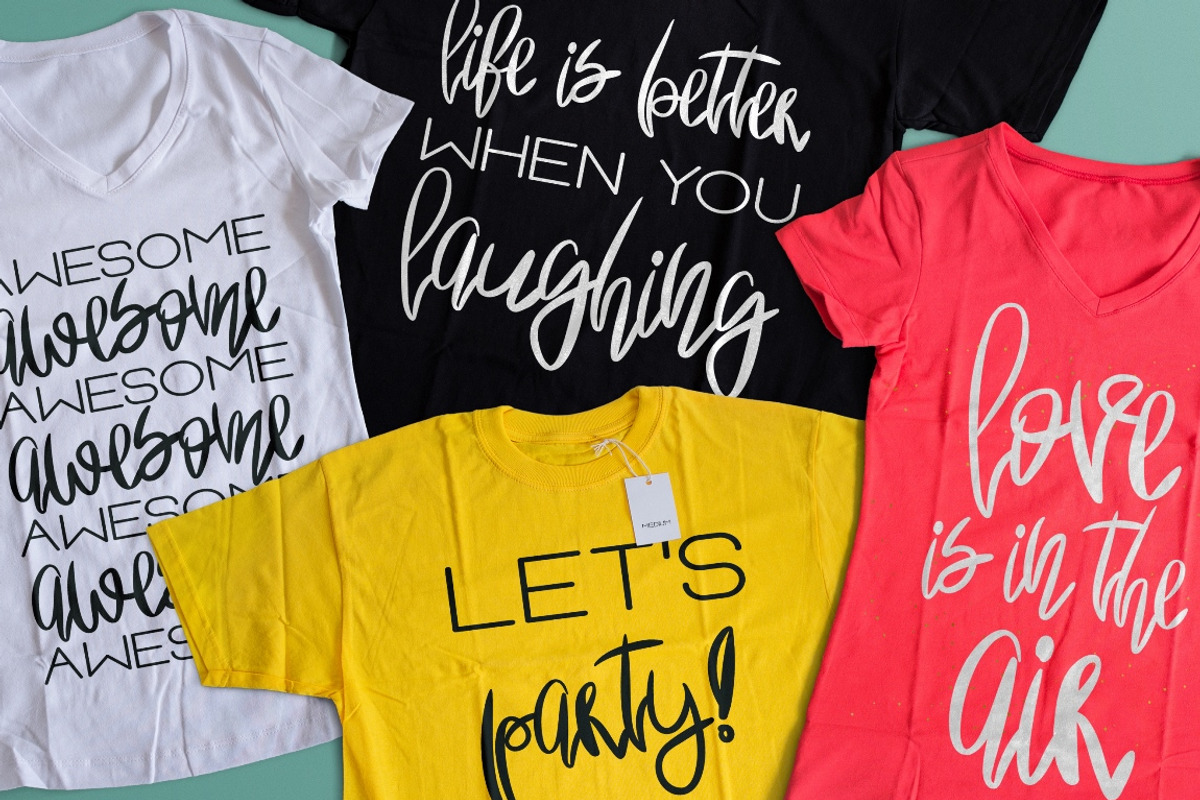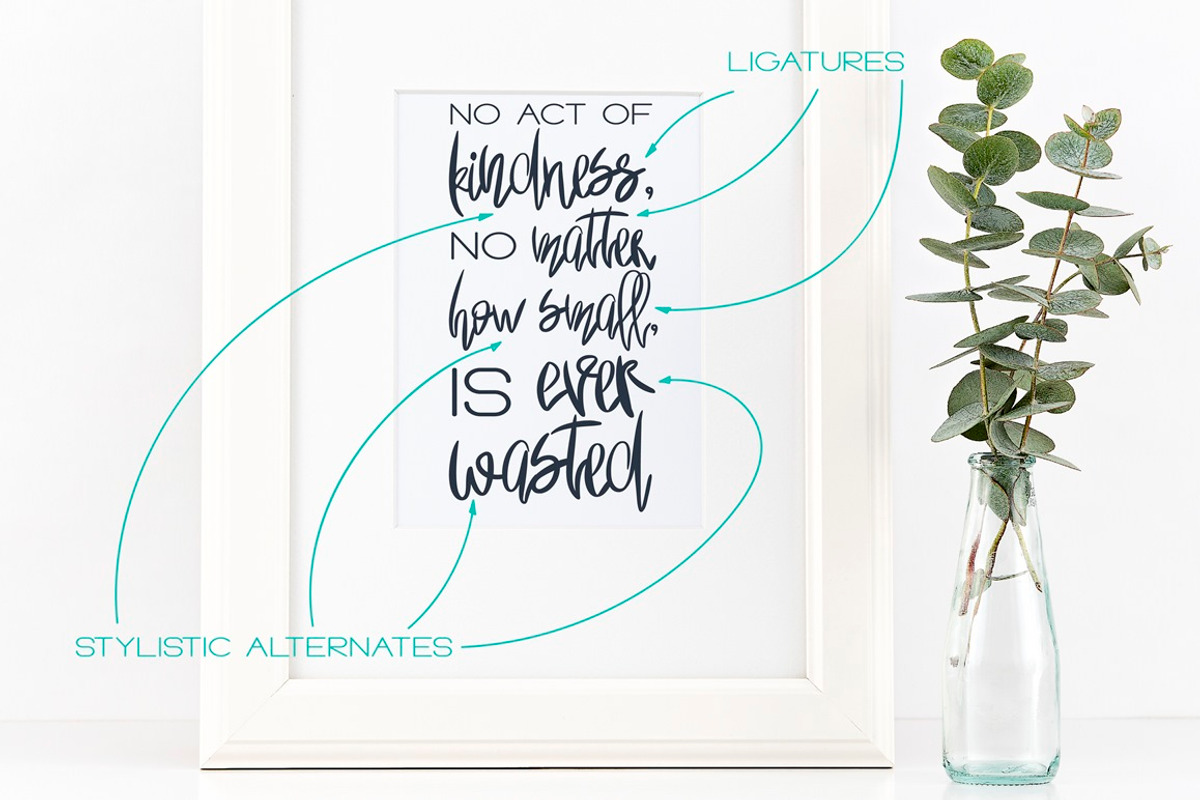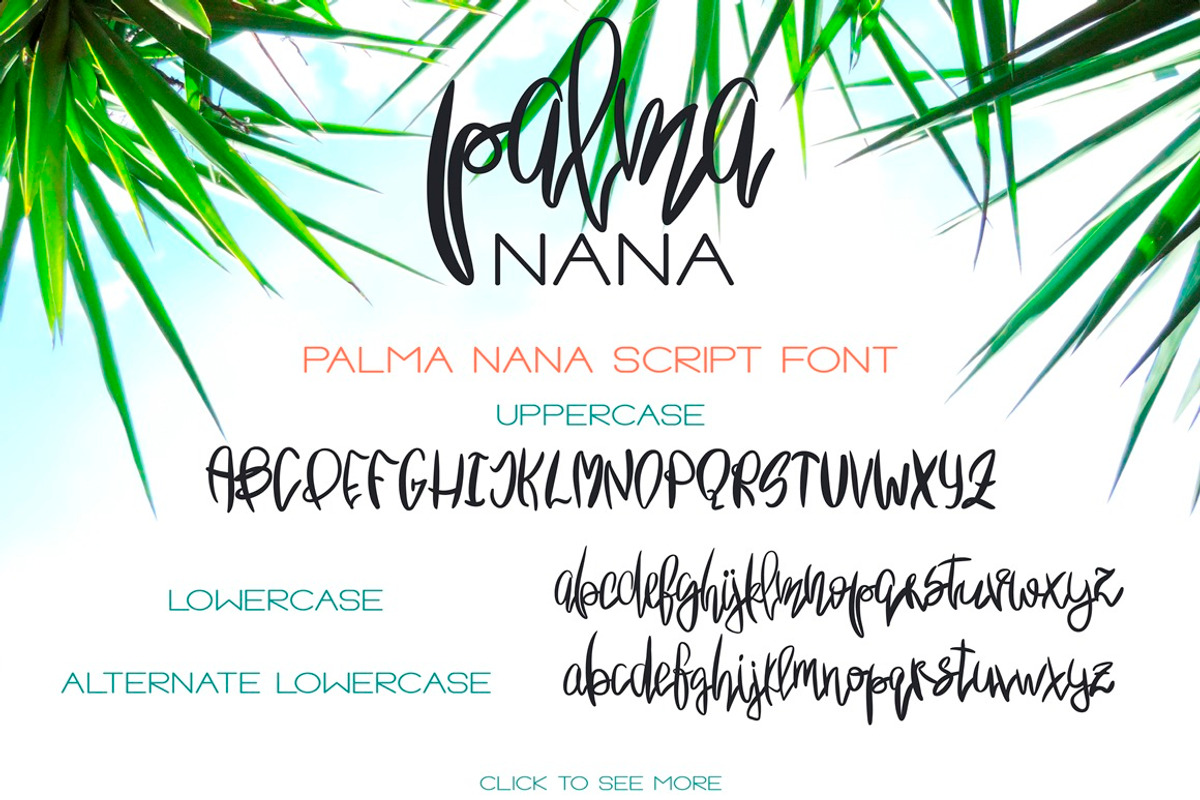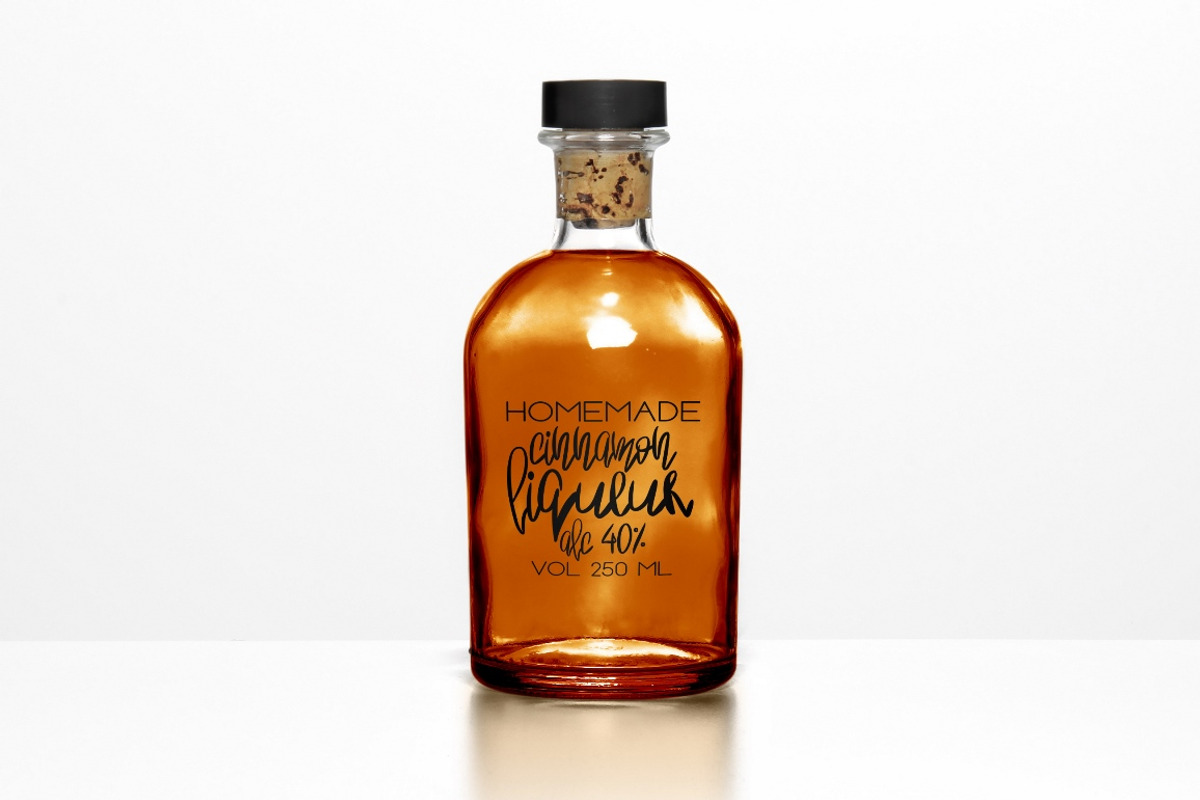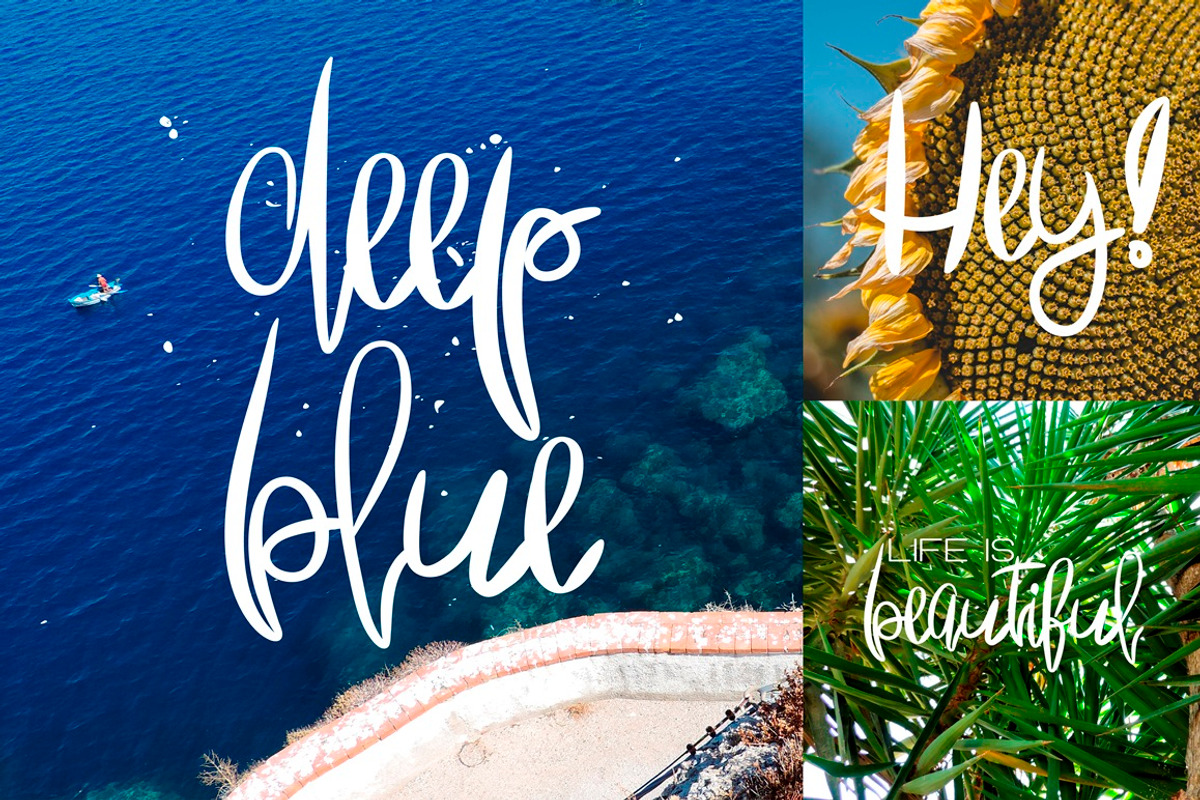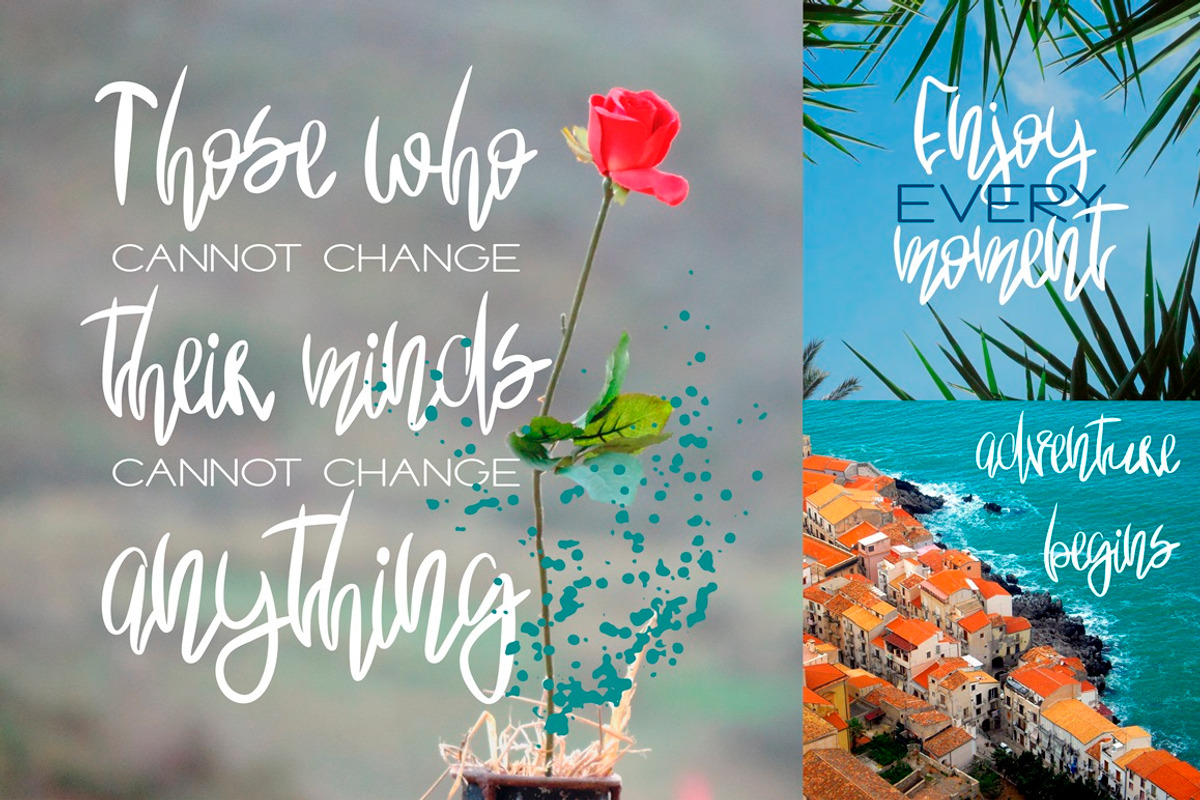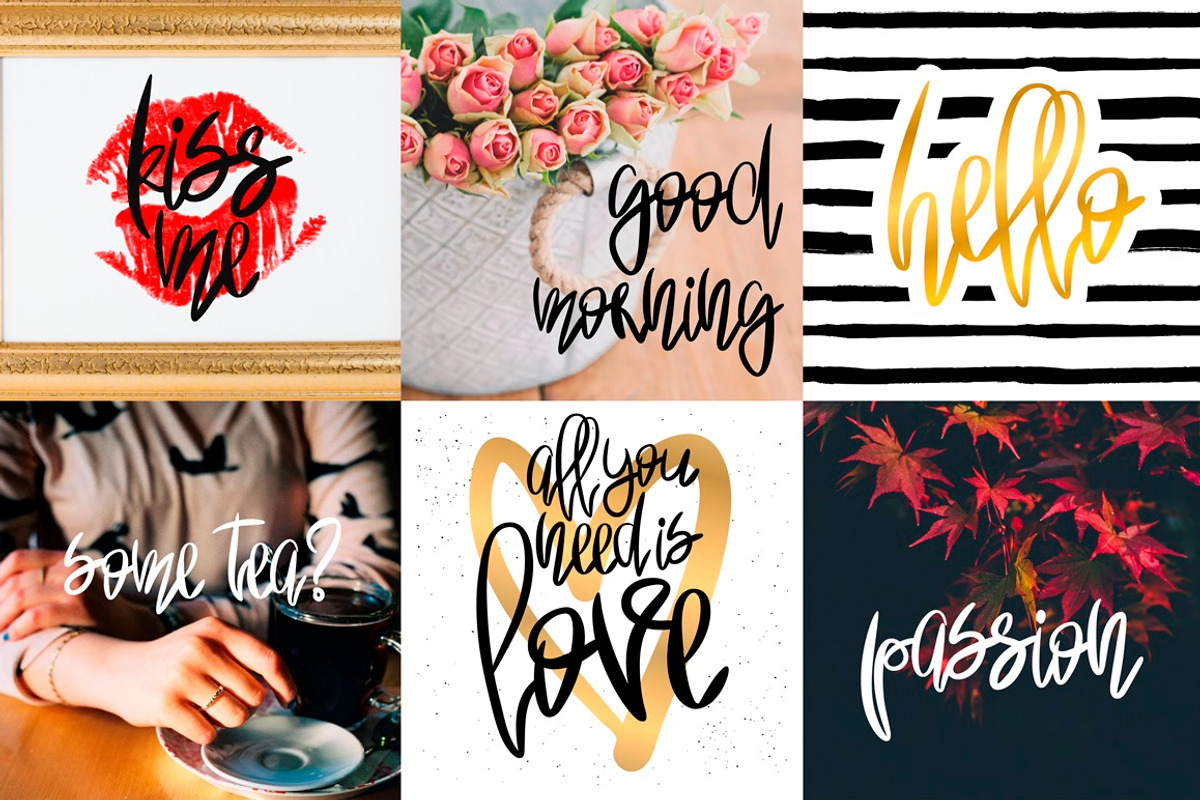
Palma Nana - Sunny Font Duo
Palma Nana - Sunny Font Duo by Anastasiia VNSK is a font selected for branding, posters, packaging, typography.
- Palma Nana Font Duo includes two different typefaces: quirky hand-drawn script and thin sans serif - for amazing contrast combinations.
- Script version of this typeface is multilingual - language support is included.
- Palma Nana Regular (Script)
- Uppercase letters
- Lowercase letters
- Alternates for all lowercase
- Punctuations
- Accented characters (language support)
- Palma Nana Regular
- Palma Nana Sans
Palma Nana - Sunny Font Duo by Anastasiia VNSK fits naturally into Branding, posters, packaging, typography.